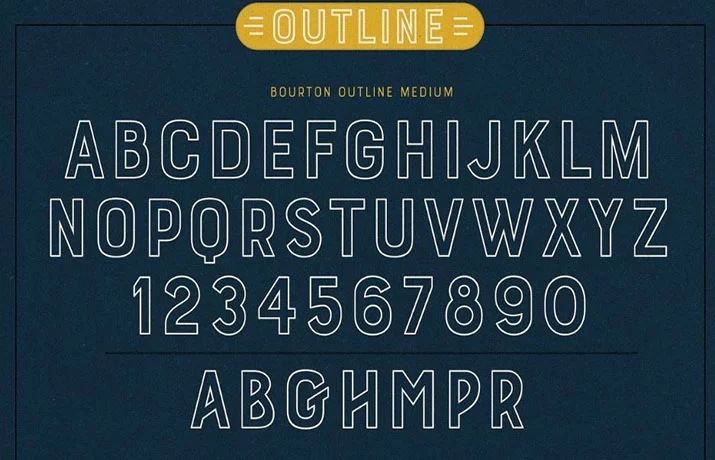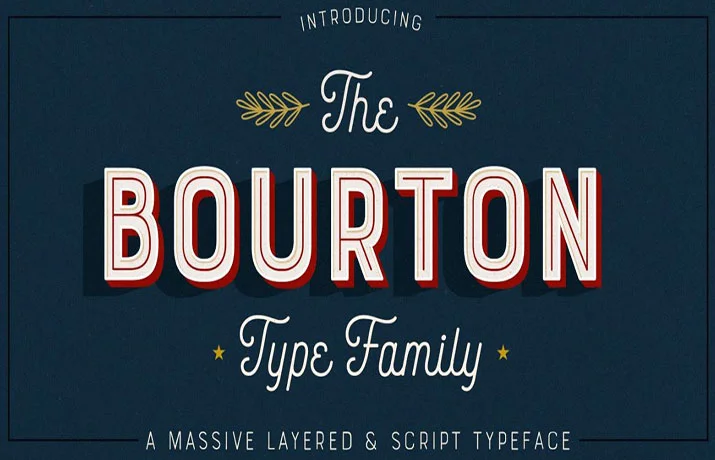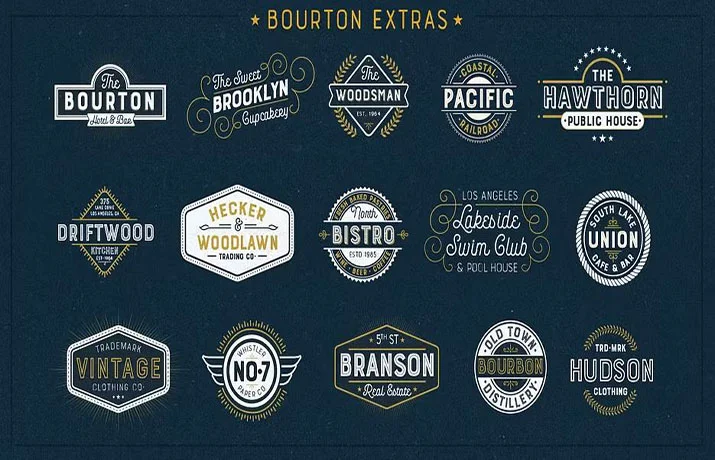
Bourton Base Font Free Download – [By Kimmy Design]
Bourton Base Font is a display sans serif typeface with a geometric shape and modern aesthetic. It was designed by Kimmy Kirkwood and published by Kimmy Design.
It is structured with clean strokes, for which the designer has added a suitable baseline. This makes it highly readable for all sizes. It has a medium x-height which makes it a better choice for headings.
So, this beautiful font is the best option for various tasks whether it belongs to the basic or stylish category. Use it in your next magazine design, upscale packaging, outlines, drop shadow, or other design project.
“Bourton Base typeface consists of 12 weights and 34 styles. This font family comes with more than 80 characters including uppercase, lowercase, and special characters. Moreover, it also supports 90 languages.”
Bourton Base Font (Details)
| Font Name: | Bourton Base Font Family |
| Style: | Sans Serif, Geometric, Display |
| Font Designer: | Kimmy Kirkwood |
- This amazing and attractive display font has amazing features that’s why this font is suitable for 3D design purposes.
- You can use this amazing display font for a variety of text design purposes. This font is suitable for social media post design, wall mural design, banner design, and presentation design purposes. You can also choose this font for the logo design of companies and branding purposes of their products.
What is a Bourton Base Font?